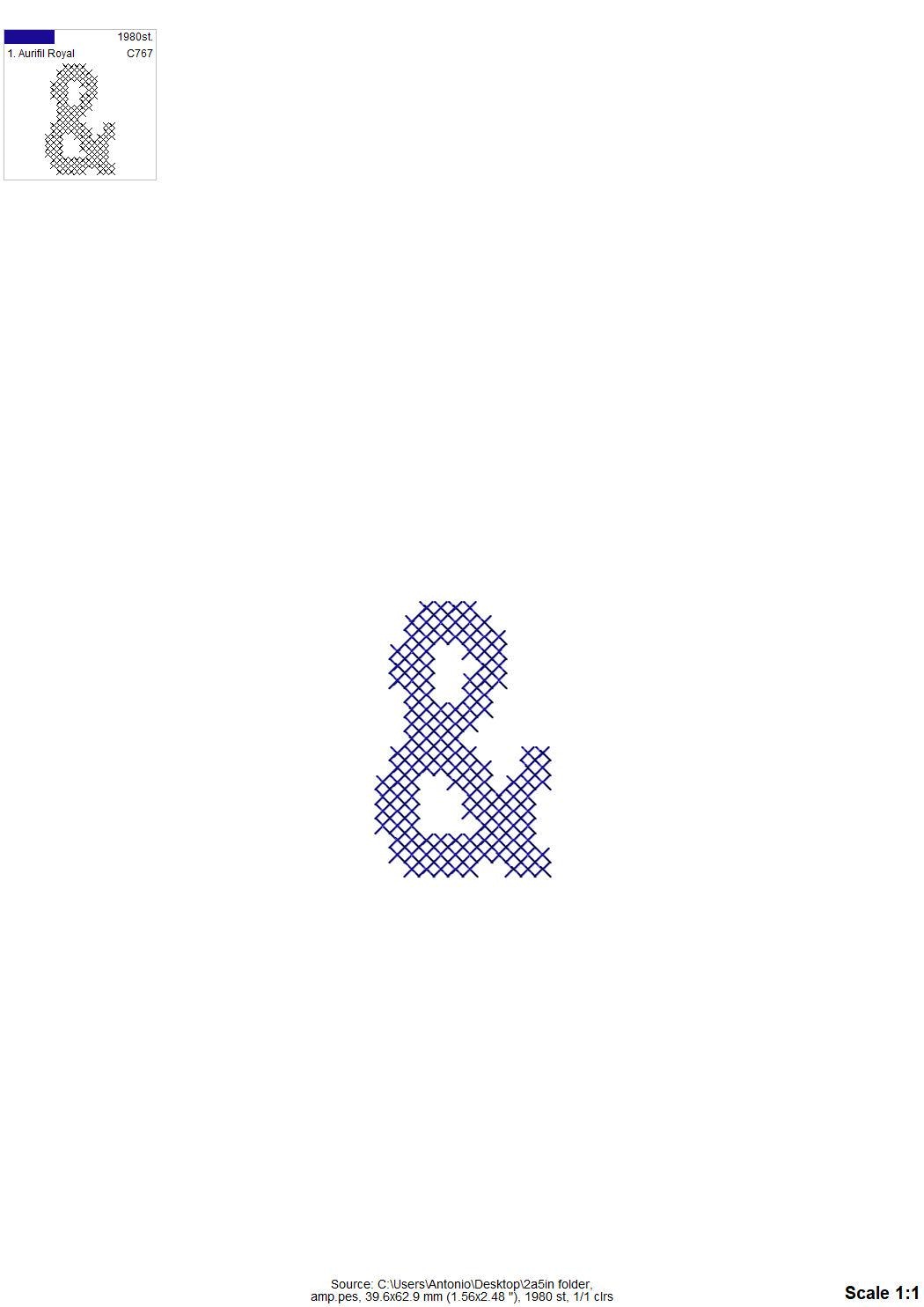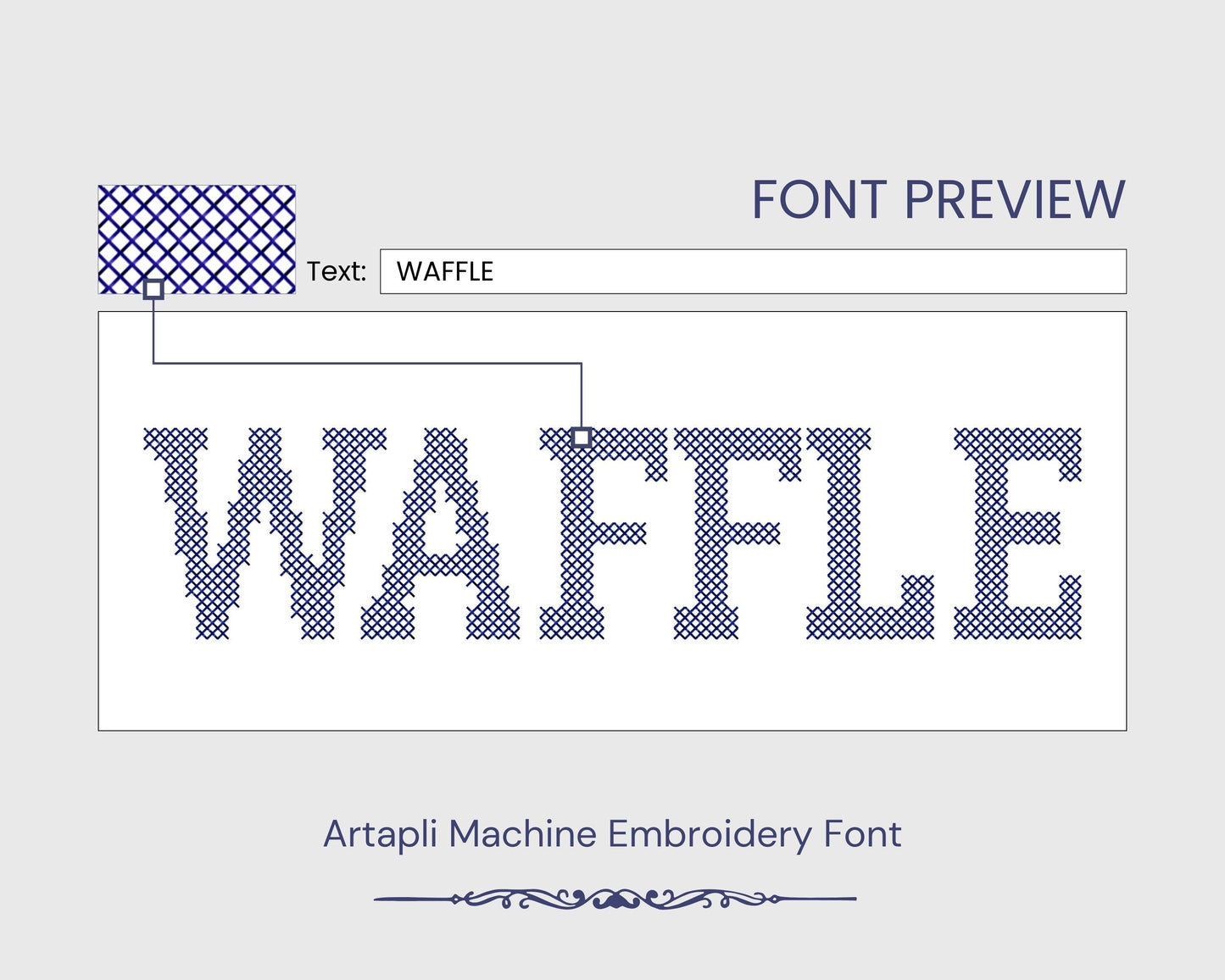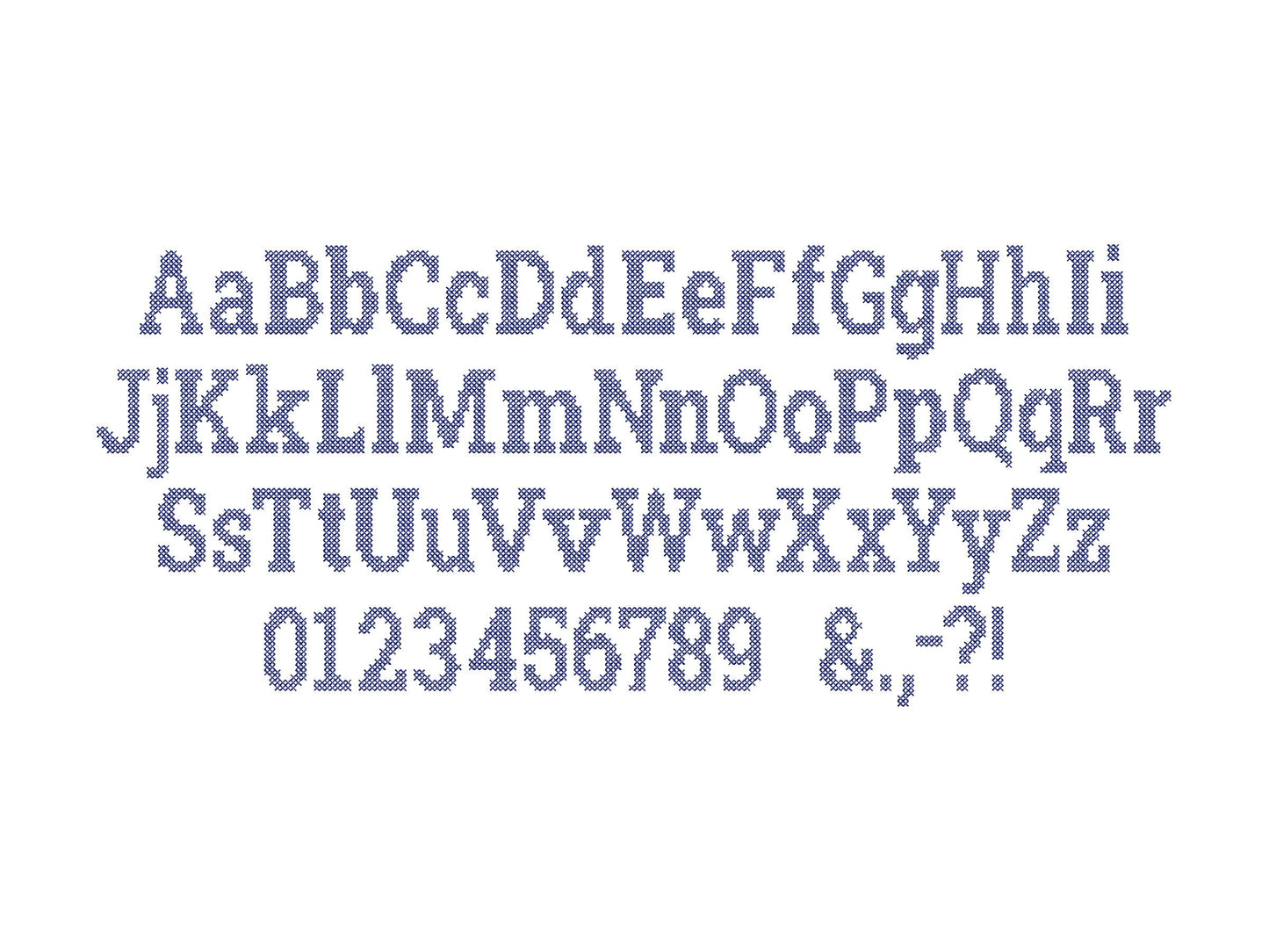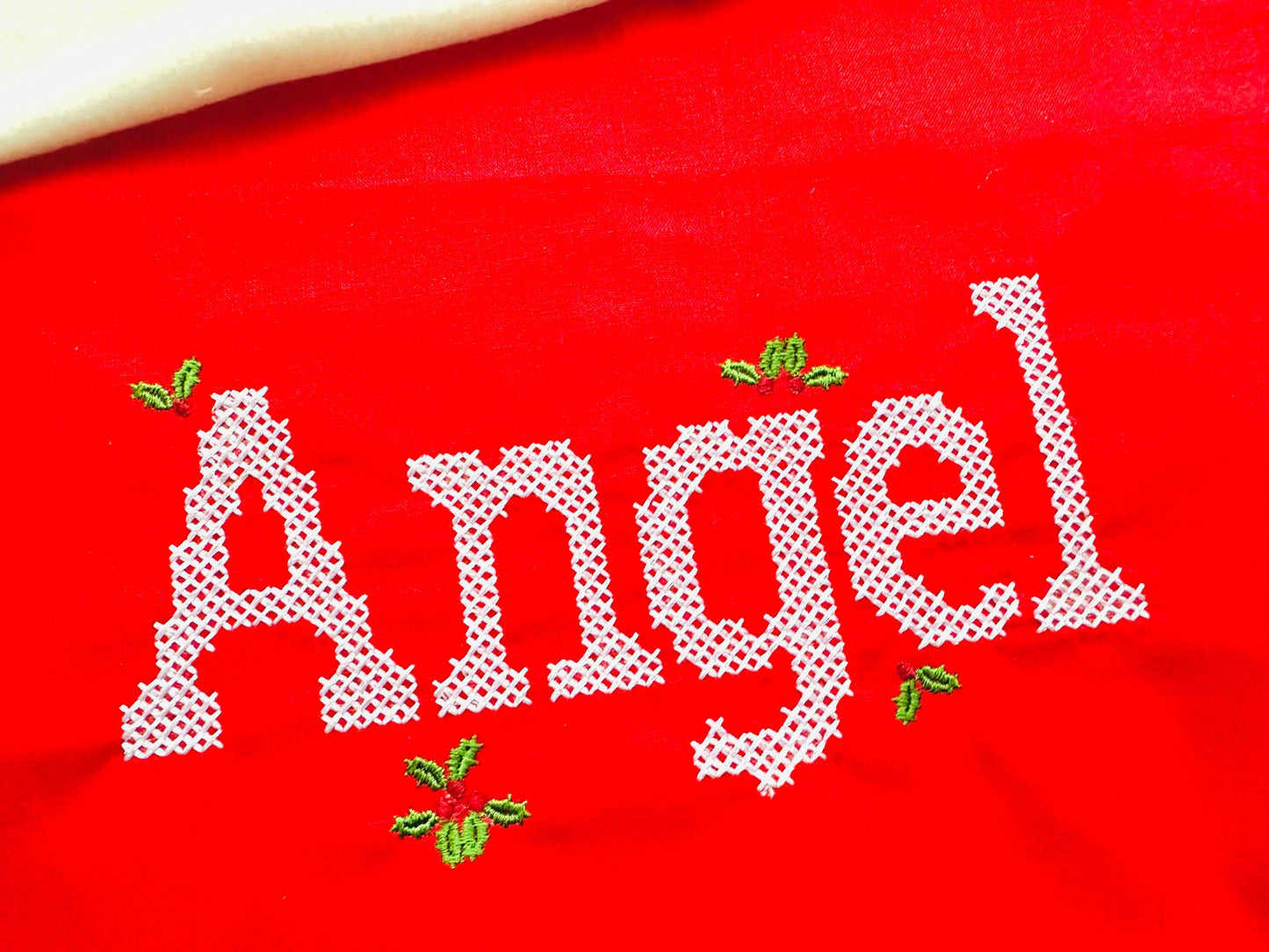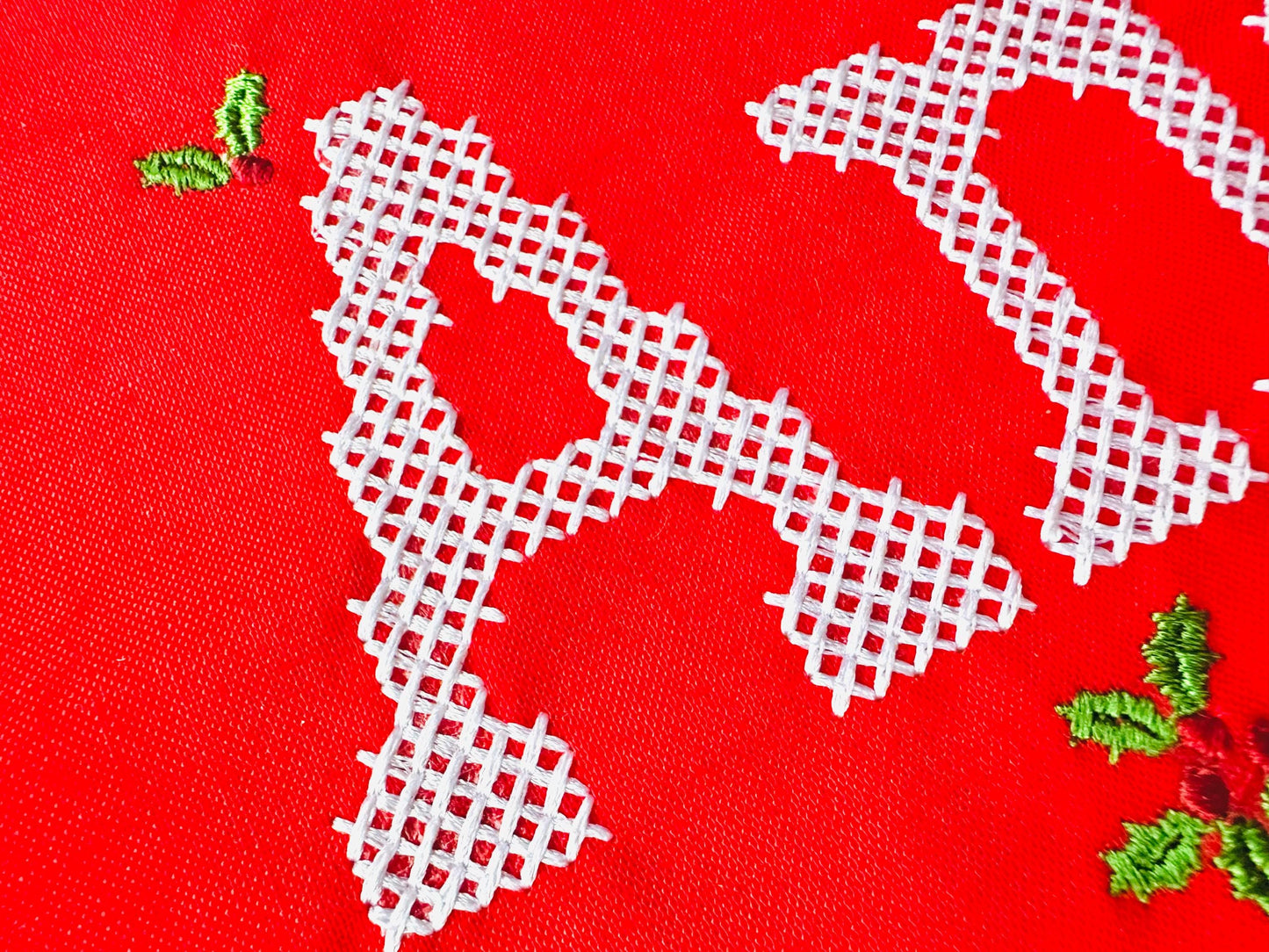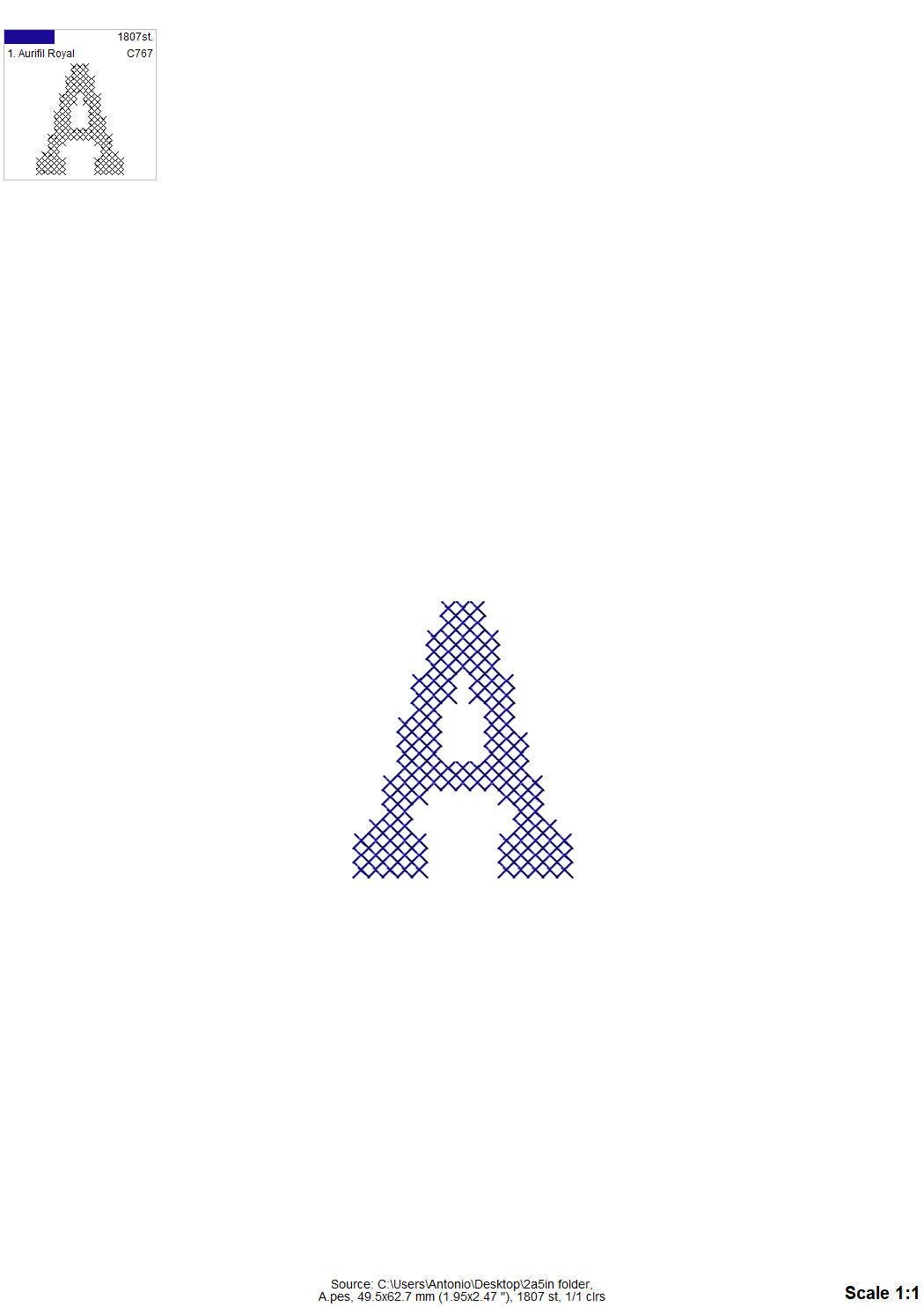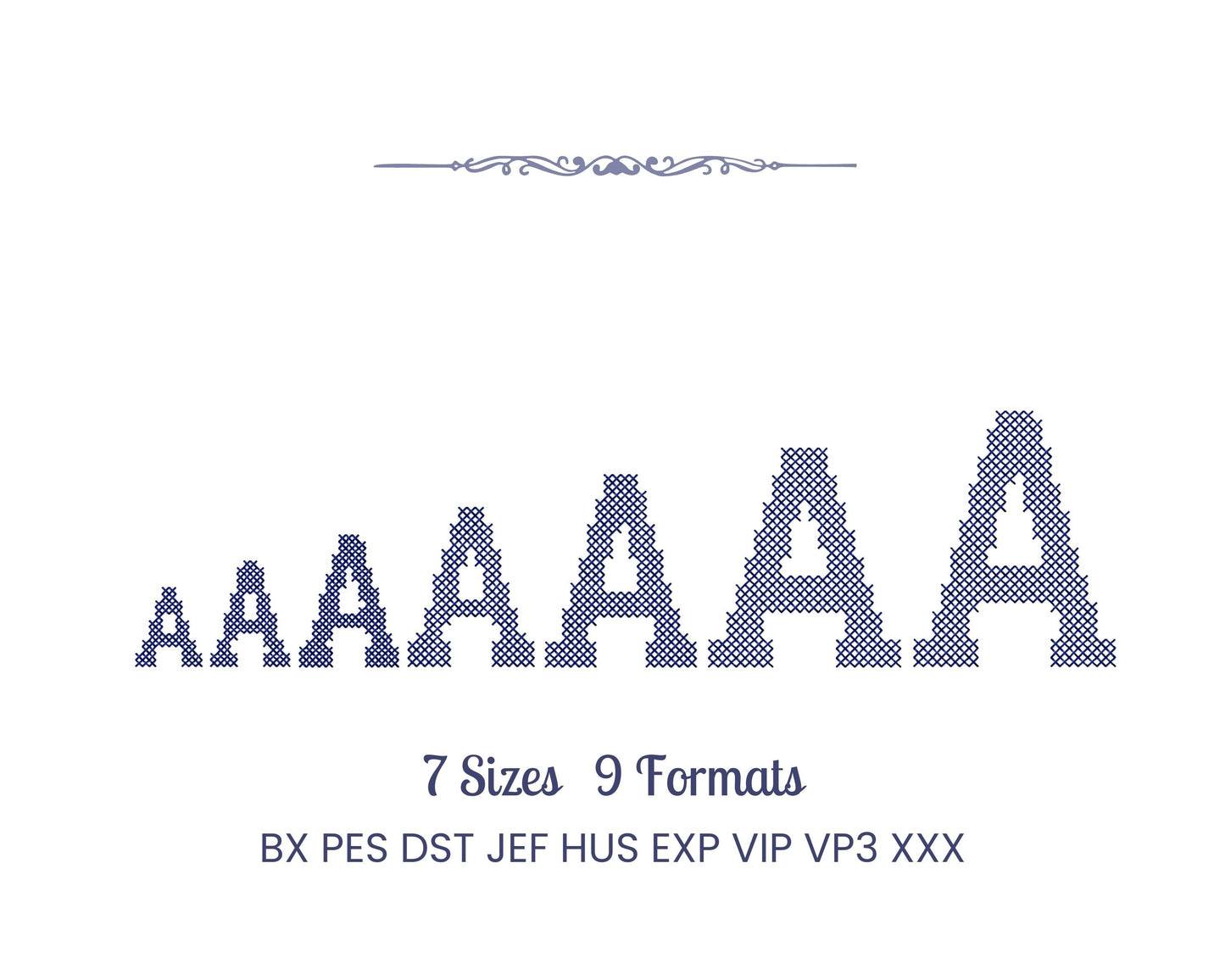
Cross Stitch Font Christmas Stocking
Or click to open the linkA cross stitch block font for Christmas stockings, names and monograms with a cozy, handmade look.
Uppercase and lowercase letters, numbers and punctuation in seven sizes: 1.2, 1.6, 2, 2.5, 3, 3.4 and 4 inches.
- Cross stitch block font
- Uppercase, lowercase, numbers 0-9, punctuation
- 7 sizes, 1.2 to 4 in